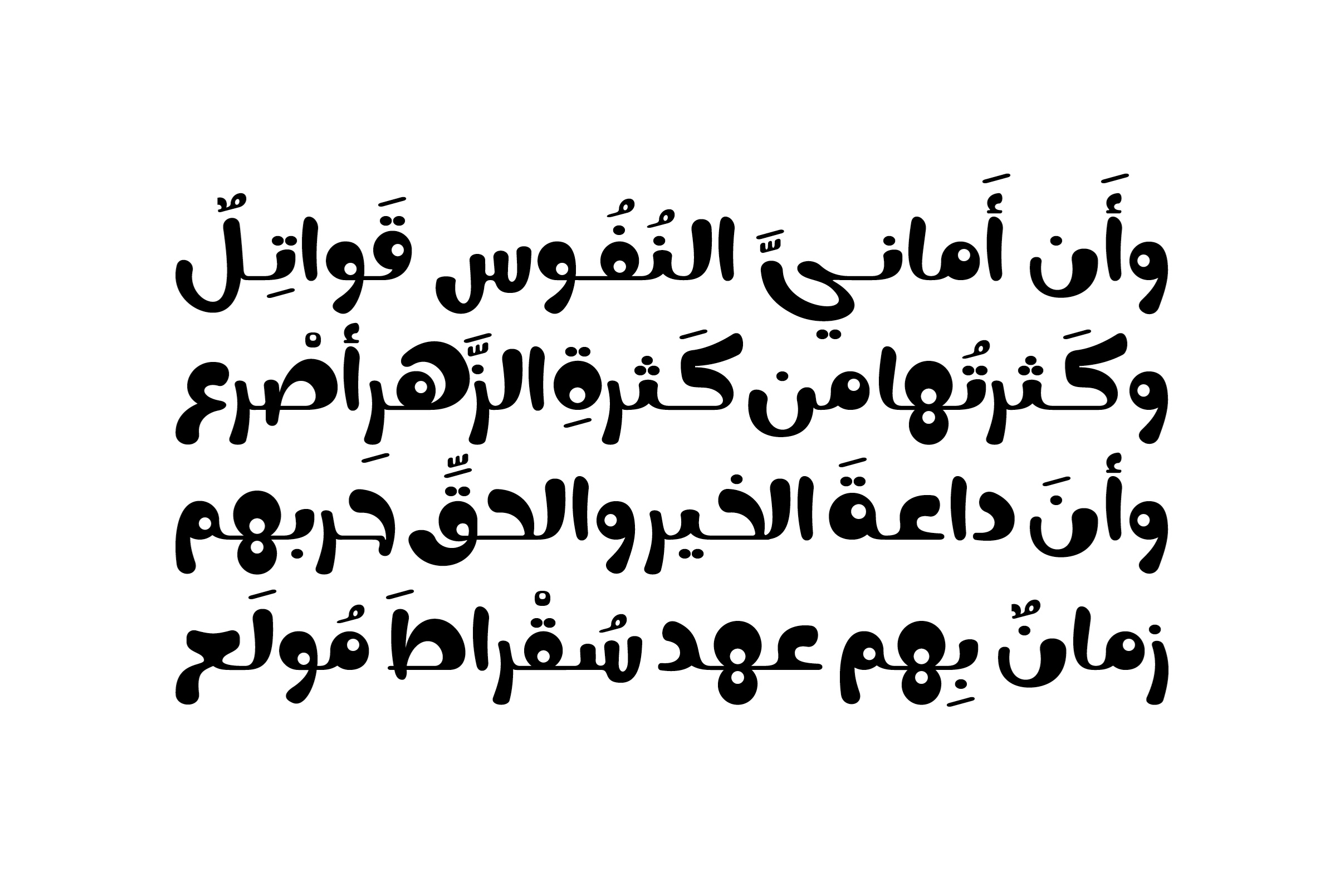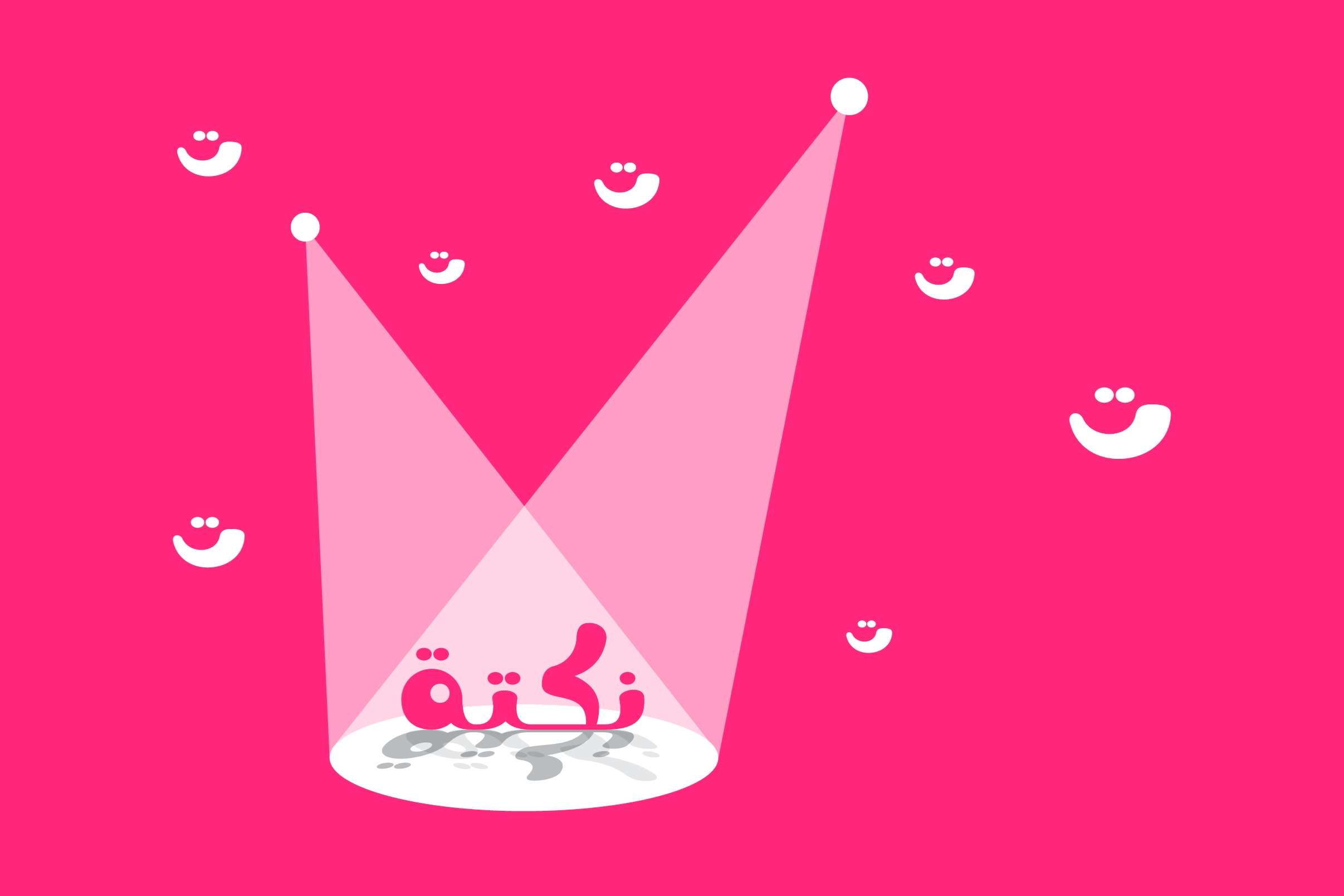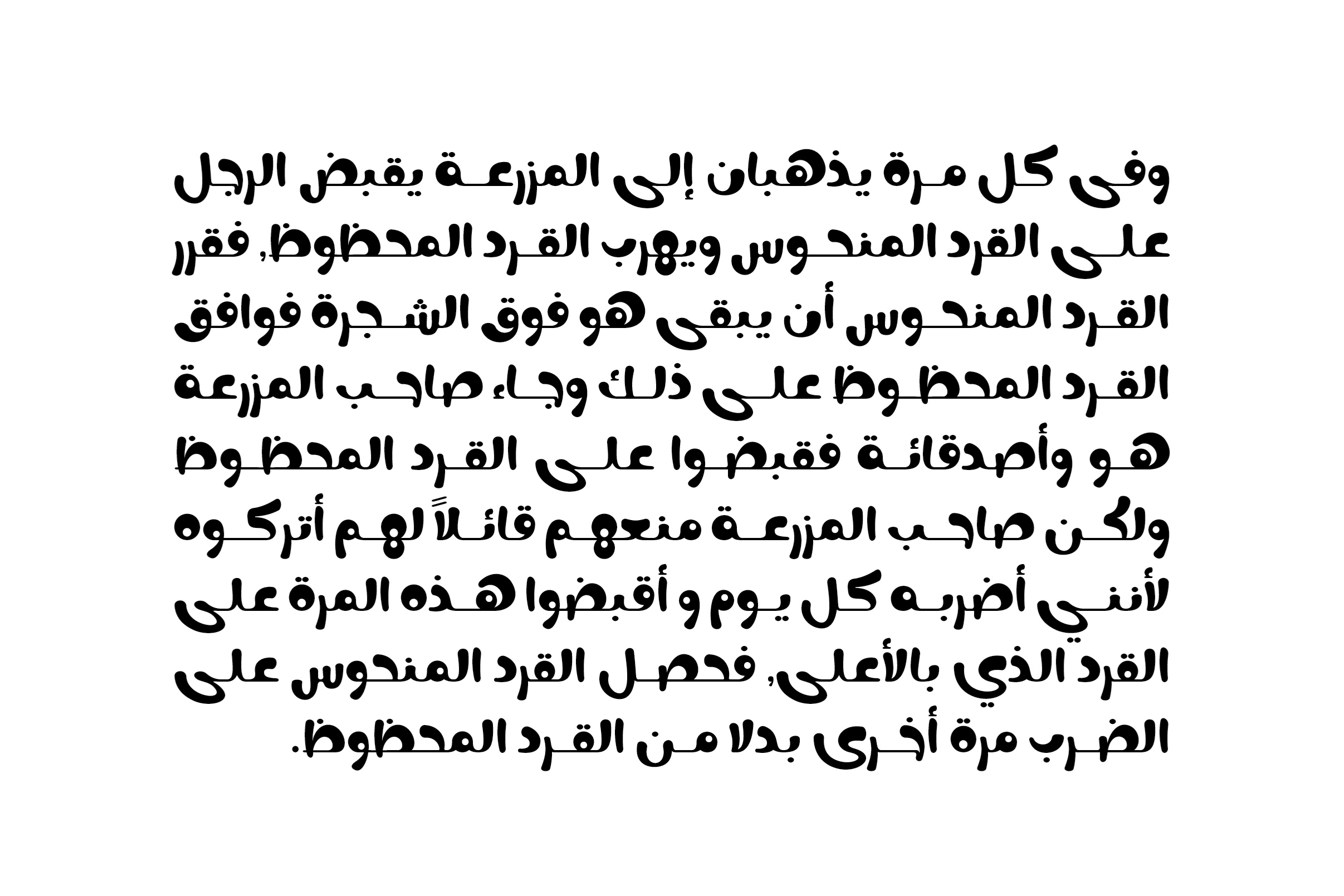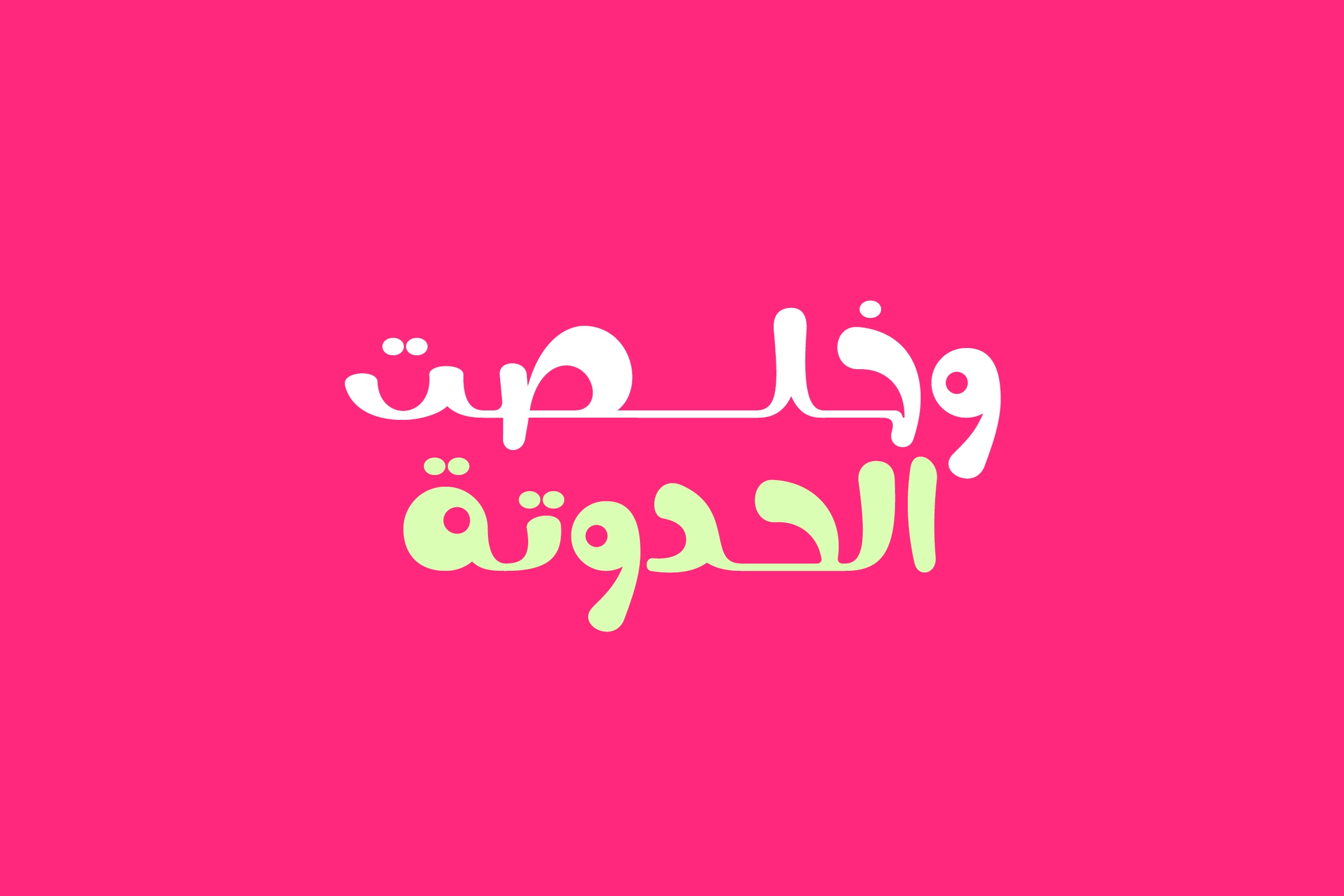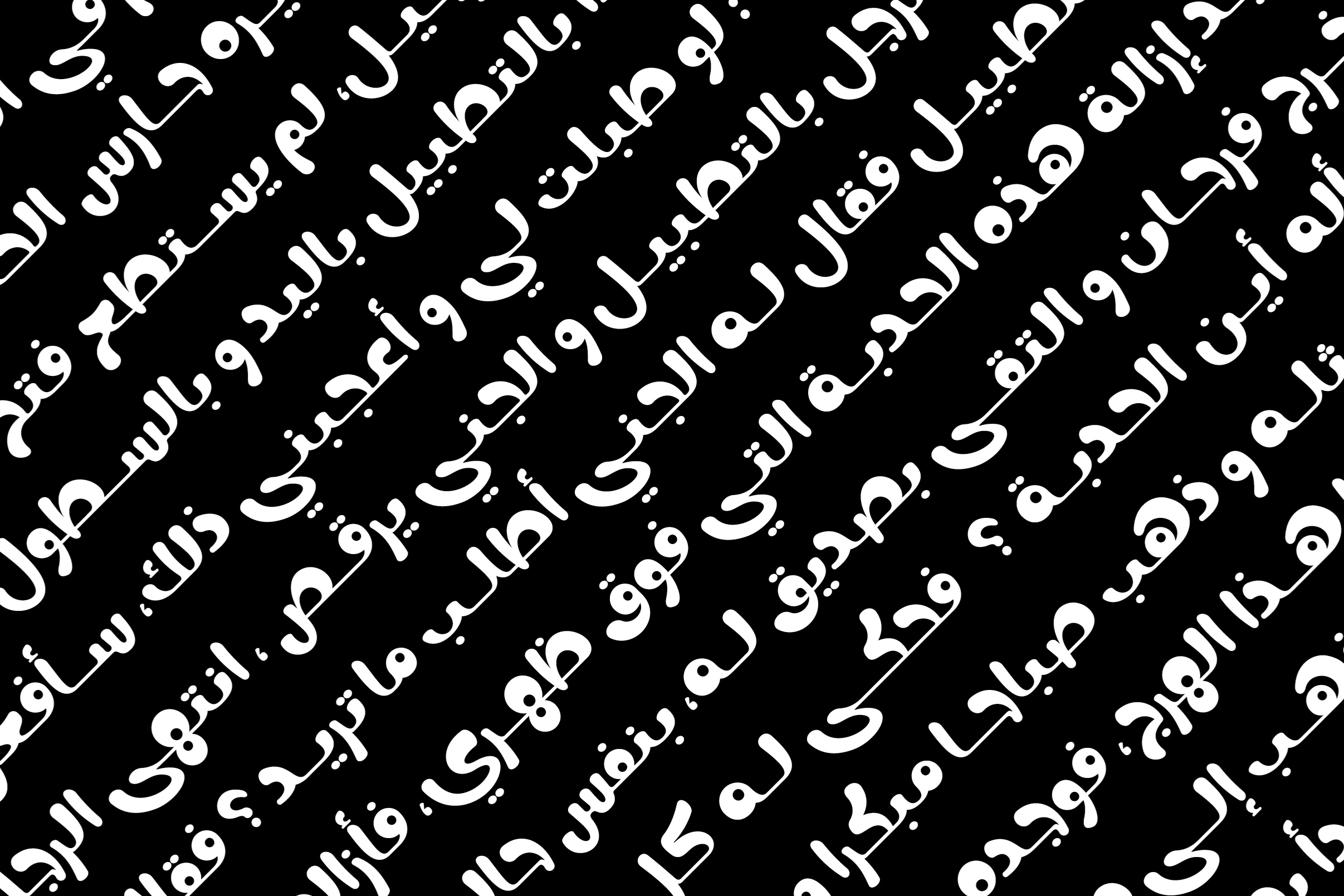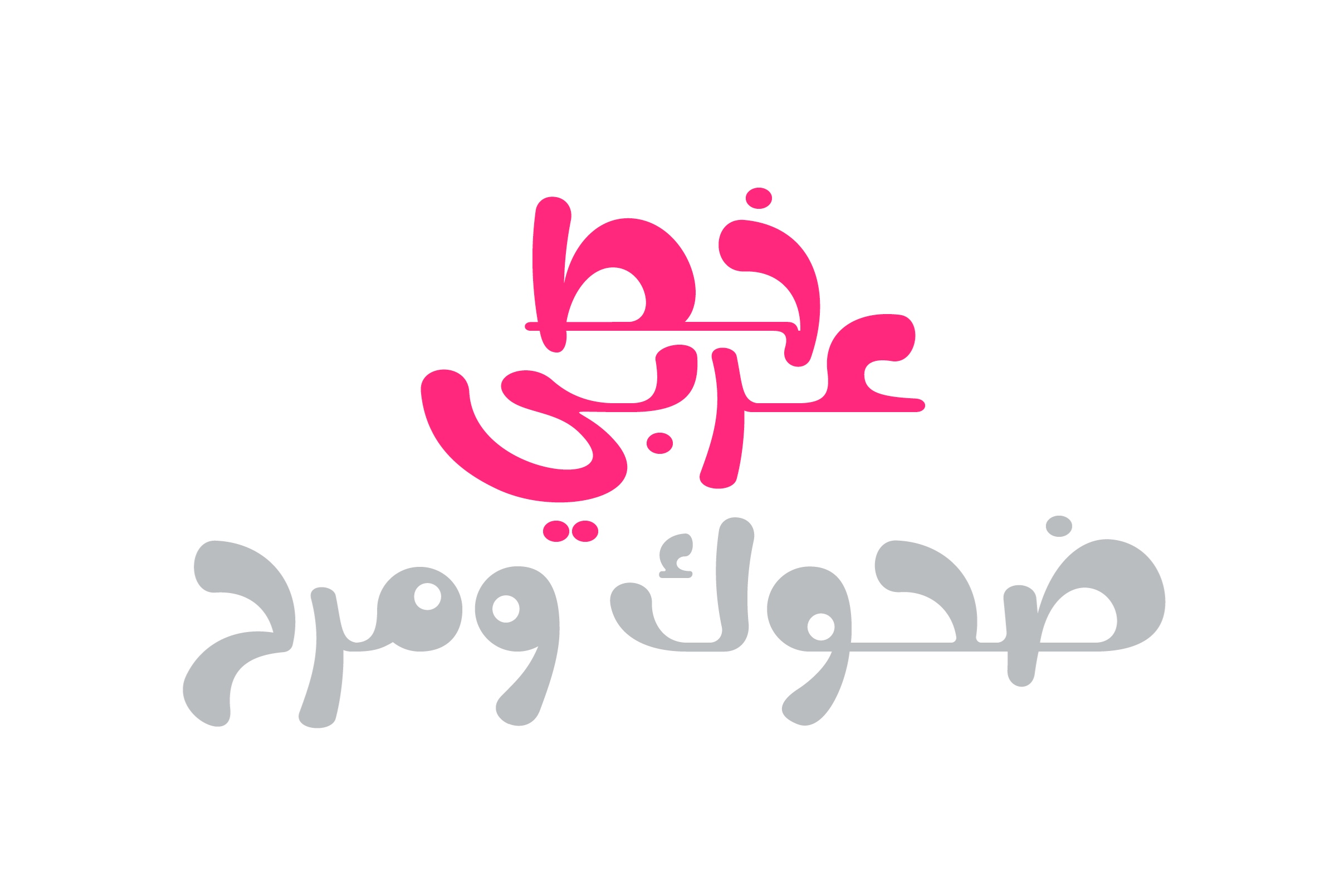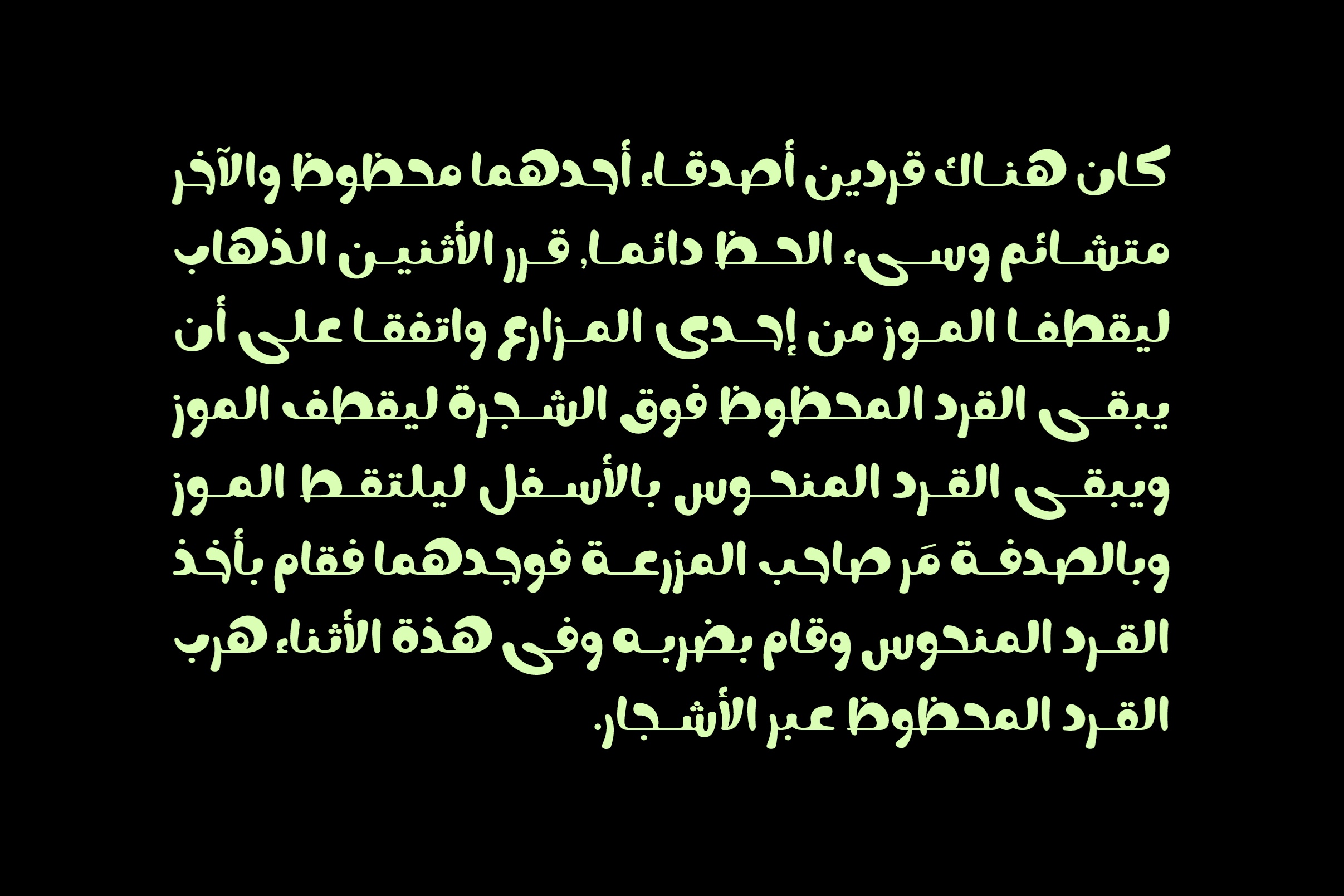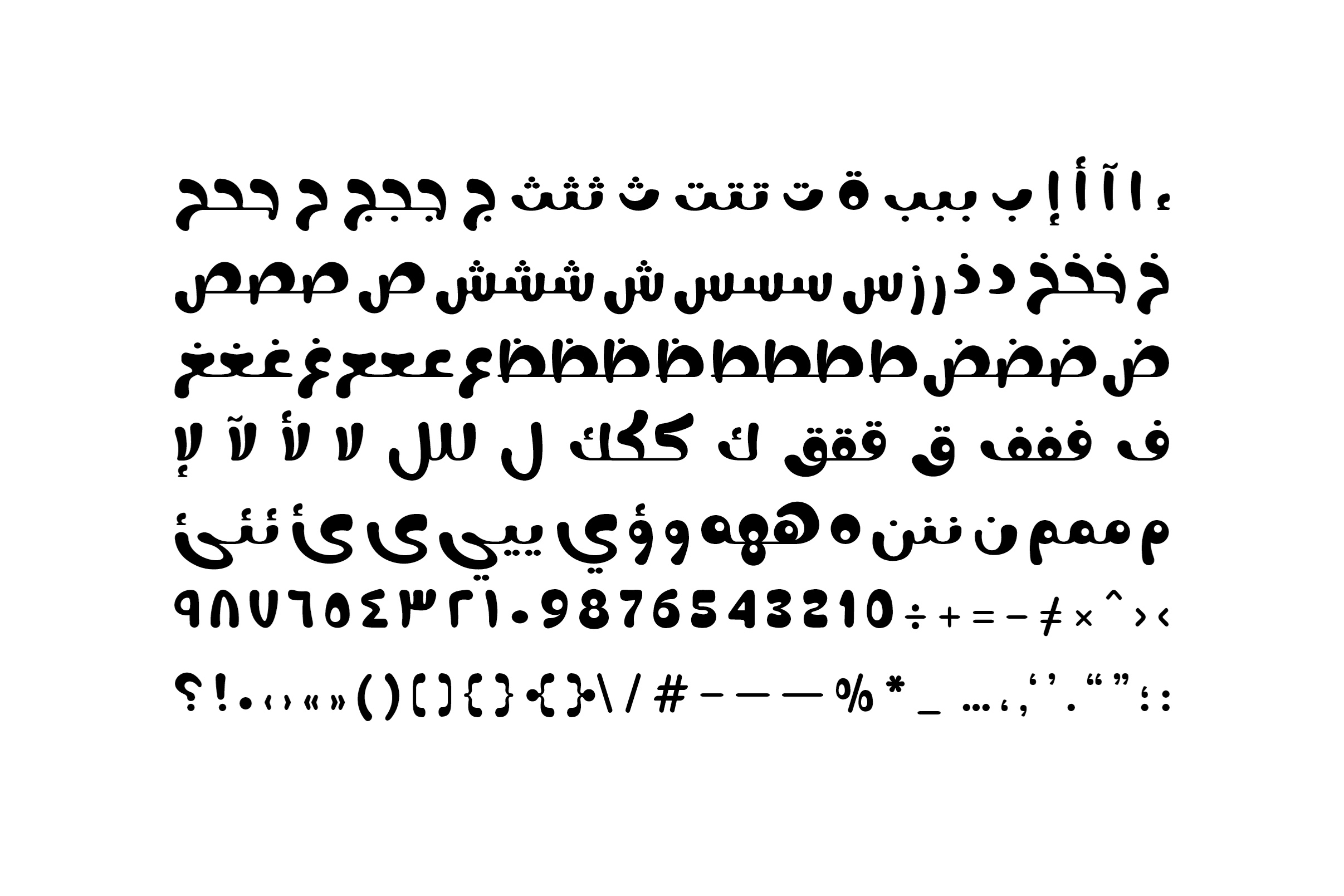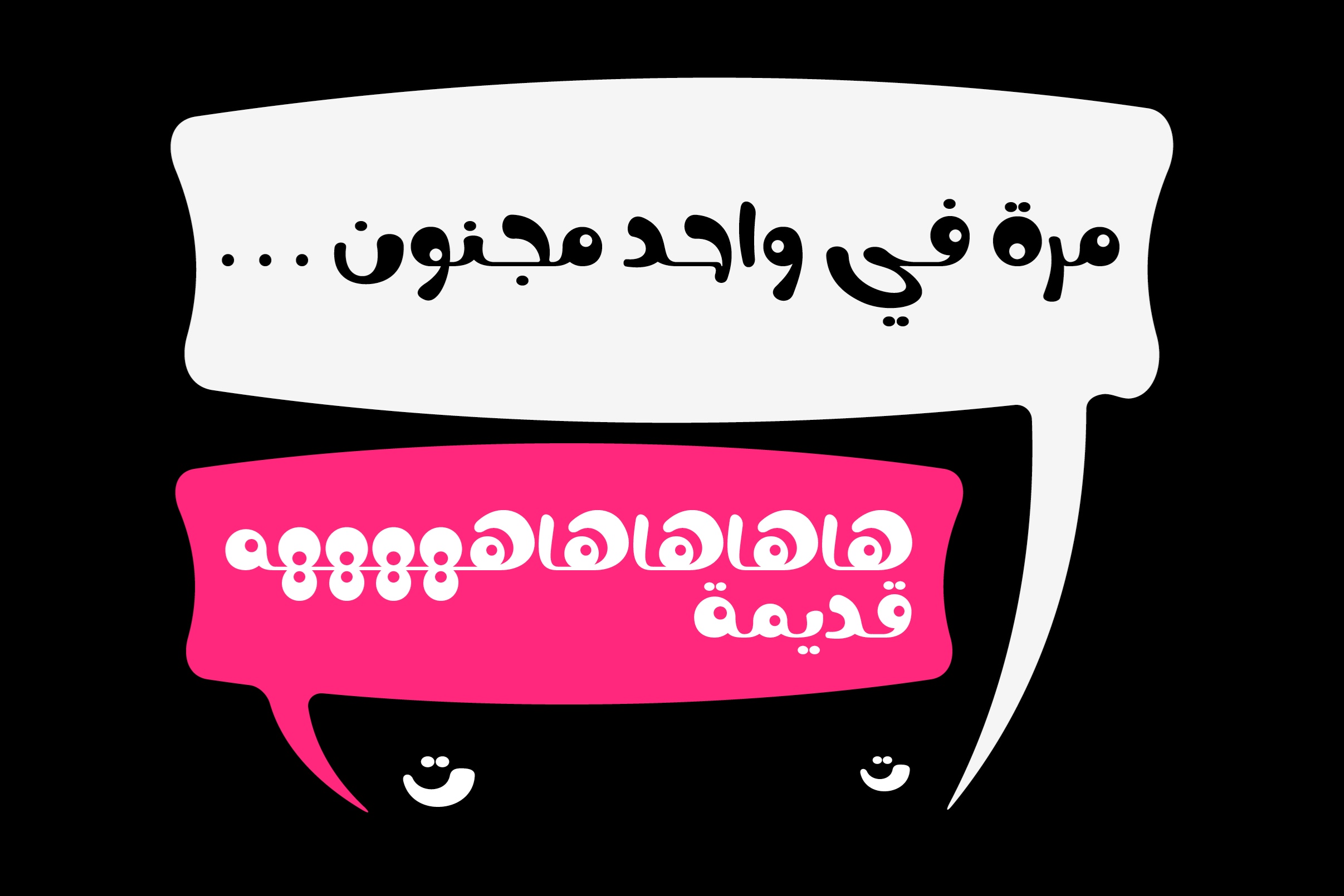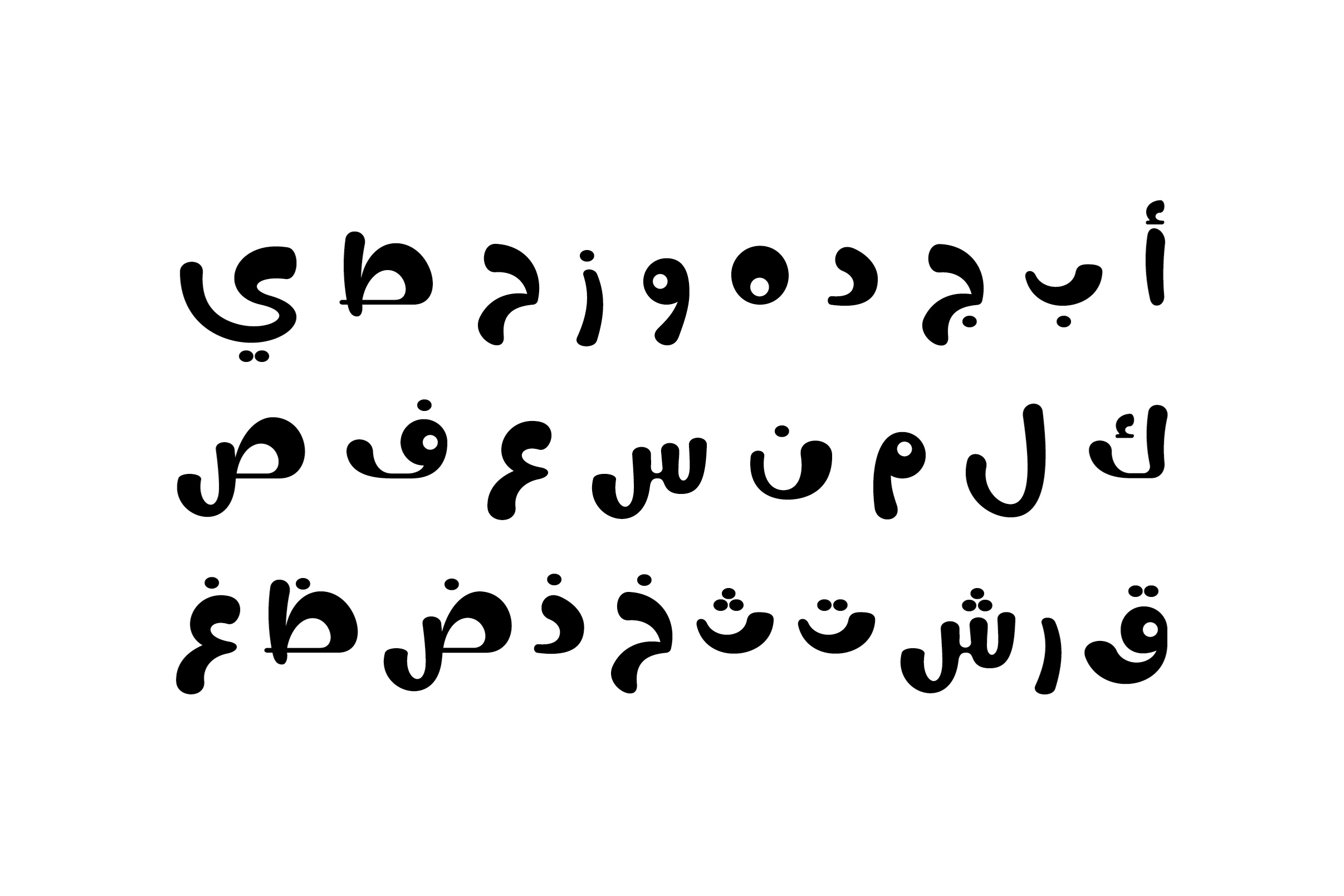
Nokta - Arabic Font
Nokta (the Arabic word for “Joke”) is an Arabic display font featuring playful, humorous letterforms. It is well-suited for a wide range of creative projects, including web, print, and mobile applications. Nokta is compatible with both Windows and macOS.
Single style